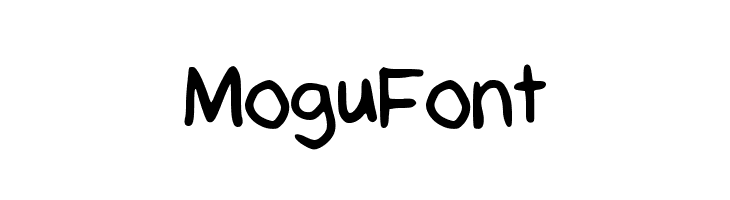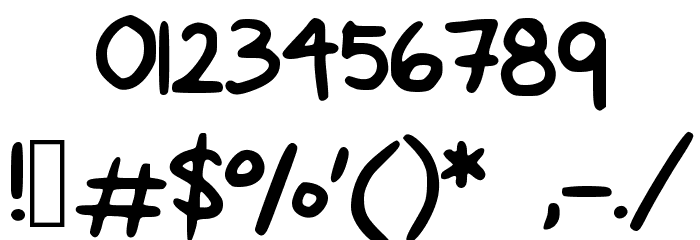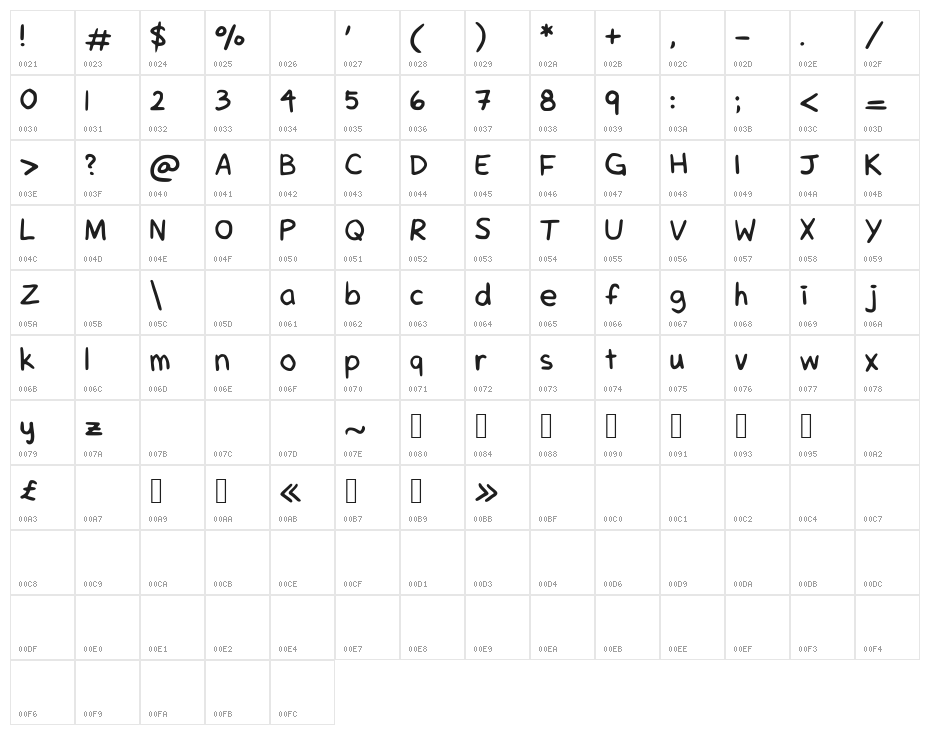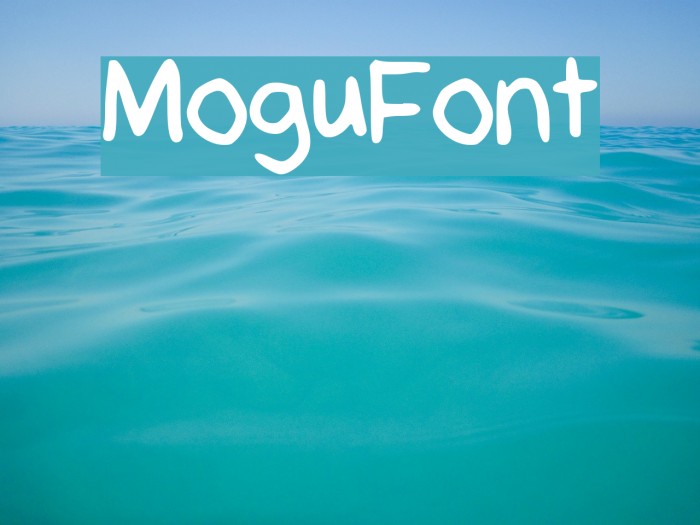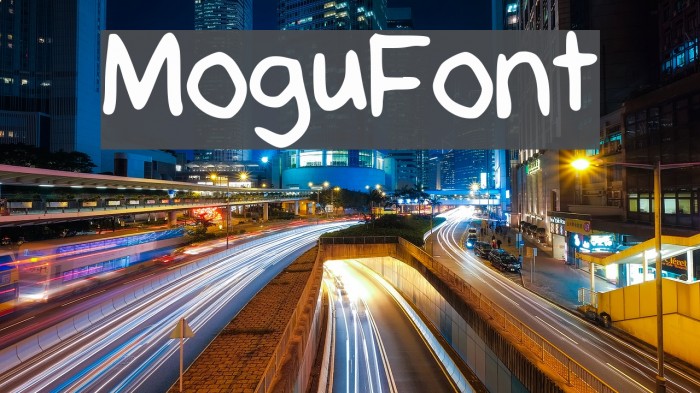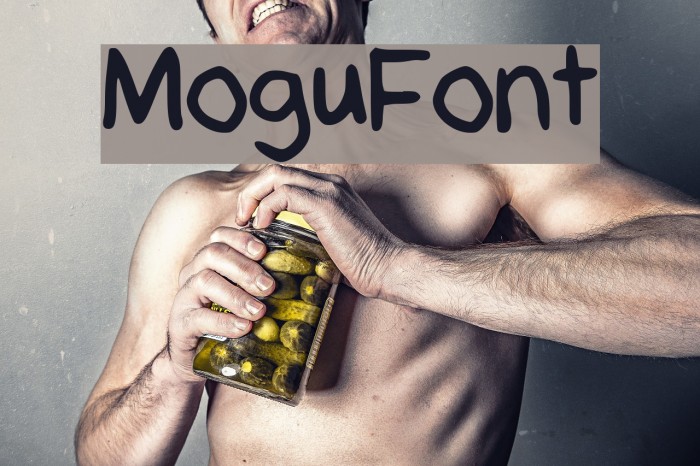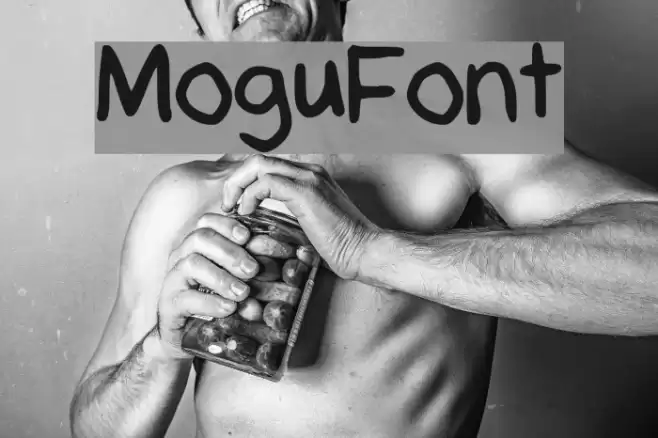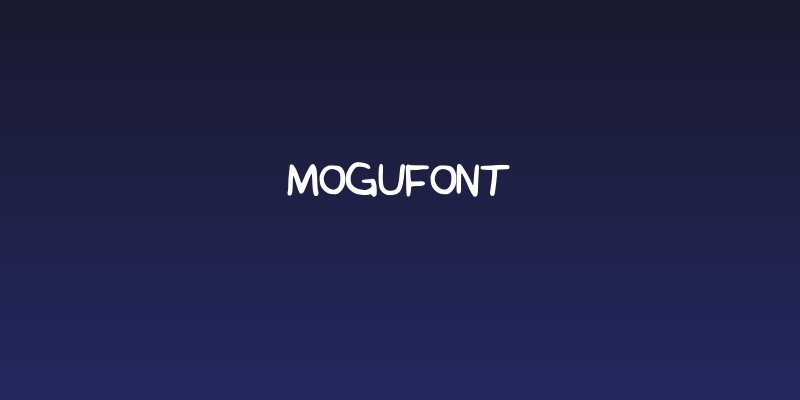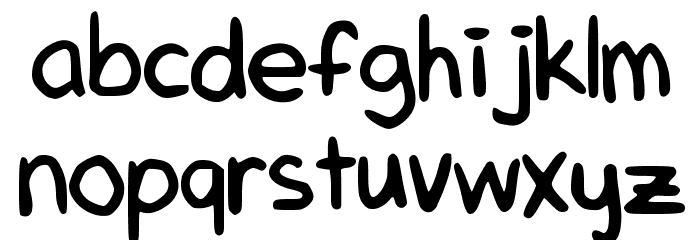
MoguFont Font
MoguFont Description
This playful and rounded font features a handwritten style with a casual, friendly appearance. The characters are bold and slightly irregular, giving them a unique, organic feel. The uppercase and lowercase letters maintain a consistent style, with smooth curves and a slightly exaggerated width. Numbers and special characters follow the same aesthetic, ensuring a cohesive look across all text elements. The font's informal nature makes it ideal for projects that require a personal touch or a sense of whimsy.
| Proposed Projects | Ideal for children's books, greeting cards, playful branding, and informal invitations. |